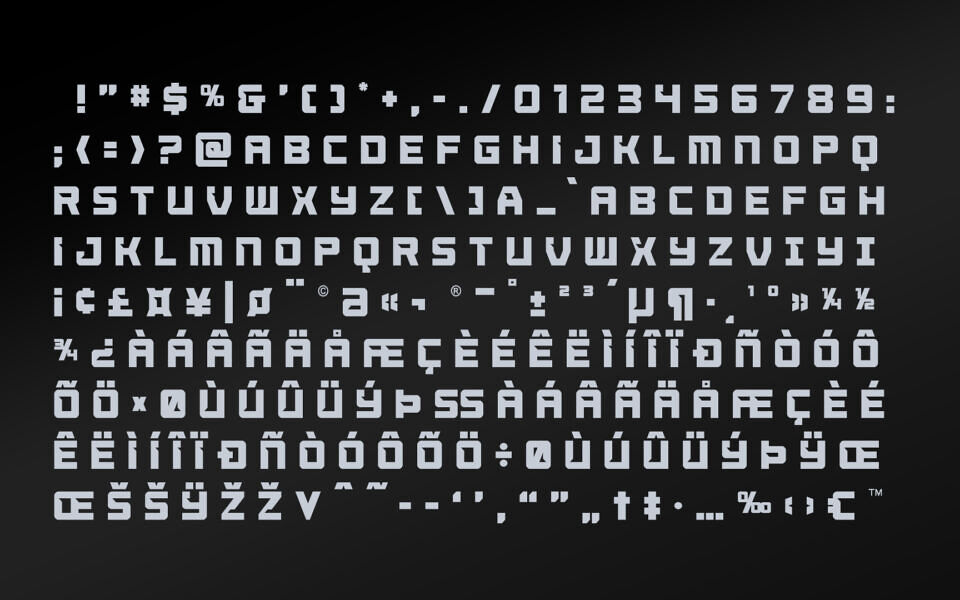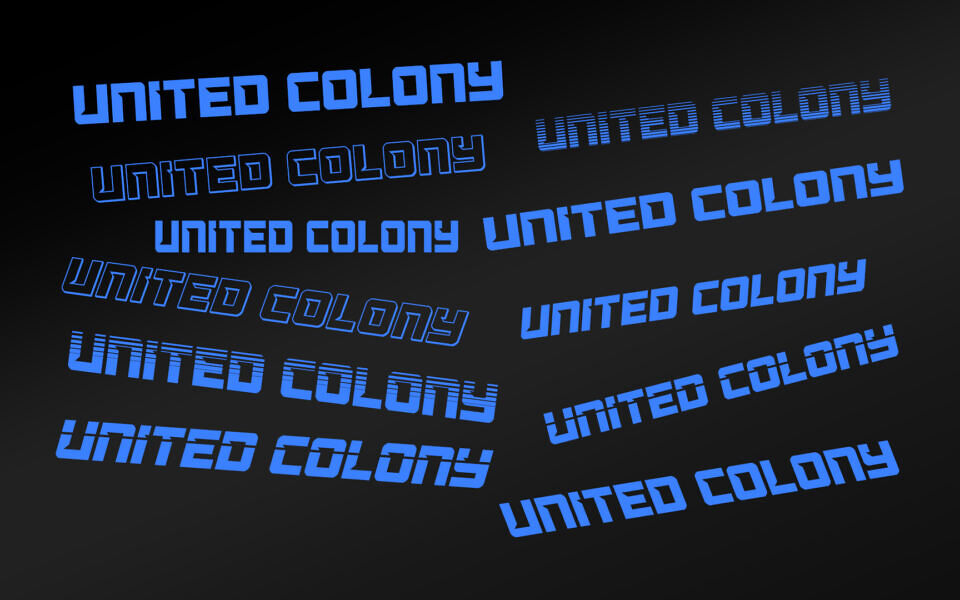
United Colony Font Family
United Colony is a bold, futuristic display typeface with sharp cuts, angular forms, and a high-tech aesthetic. Inspired by racing, sci-fi, and modern sports branding, it delivers a strong sense of speed, power, and innovation. Its striking letterforms make it ideal for logos, esports graphics, posters, gaming projects, headlines, and technology-focused designs that demand attention and a dynamic visual impact.
The United Colony font family by Iconian Fonts features 18 distinct styles: Regular, Semi-Italic, Super-Italic, Semi-Leftalic, Condensed, Condensed Italic, Expanded, Expanded Italic, 3D, 3D Italic, Laser, Laser Italic, Halftone, Halftone Italic, Gradient, and Gradient Italic.